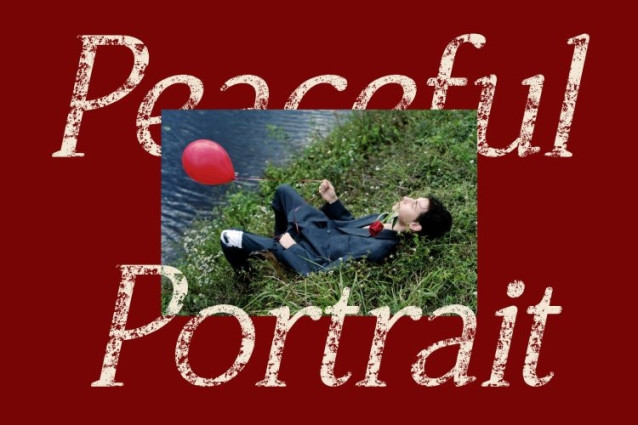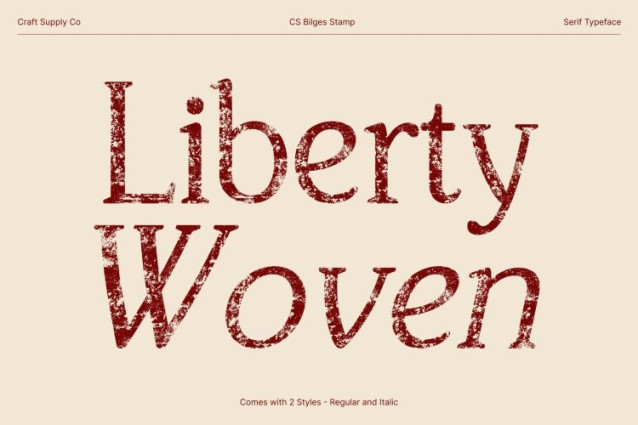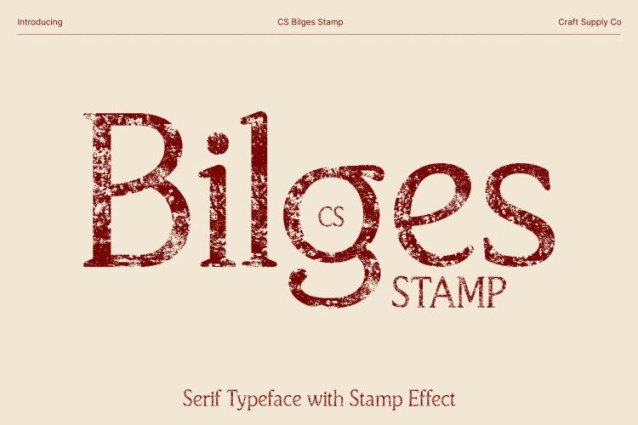
CS Bilges Stamp Font
CS Bilges Stamp Font This is a modern classic serif font that blends traditional elegance with a subtle contemporary sensibility, now enriched with a distinctive stamp texture. Its clean structure and softly rounded edges are complemented by a slightly worn finish, giving the font a refined yet nostalgic appearance that feels both timeless and authentic.
Elegant Structure with Artistic Texture
The slim, well-balanced letterforms of this font maintain a sleek and professional silhouette, while the stamp effect introduces gentle imperfections that add depth and character. This artistic texture softens the precision of the serif design, creating a harmonious balance between elegance and handcrafted charm.
Perfect for Luxury Branding and Editorial Design
Designed for high-end applications, this font excels in luxury branding, editorial layouts, fashion magazines, and premium packaging. The combination of classic serif sophistication and vintage stamped detail gives every headline and logo a sense of heritage, credibility, and refined beauty.
Versatile, Refined, and Enduring
This font offers outstanding versatility across both print and digital media. From professional branding materials to stylish promotional designs, its timeless form and textured finish ensure a captivating visual presence that remains elegant, distinctive, and enduring across generations.